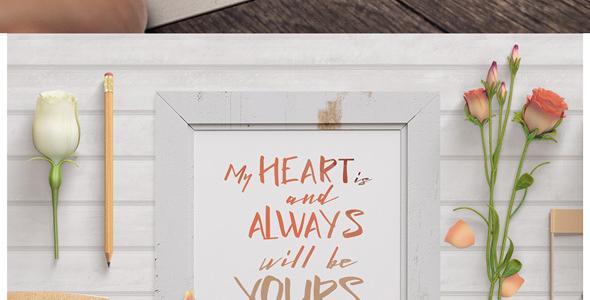
Lightening Script - Font Duo
Lightening Script, is a calligraphy wavy, modern and clasik, perfect for your next design, such as logos, printed quotes, invitations, cards, product packaging, headers and anything else about your imagination. Lightening Script allows you to create custom dynamic text. you can access by turning on; Stylistic Set, Initial and terminal as well as ligatures in Photoshop, Adobe Illustrator, Adobe InDesign or through a panel of glyphs such as Adobe Illustrator, Photoshop CC, Let’s switch from the reguler character into character alternative to get the text with the layout of your dreams. Lightening Script also includes glyphs, punctuation, numbers, and multilingual. Lightening Script features 272 glyphs and has given PUA unicode (specially coded fonts), with tons of alternate characters. The pack can be accessed in full by any crafter or designer, without the requirement for extra design software, COMPATIBLE WITH SILHOUETTE & CRICUT DESIGN SPACE also supports in pragram, Adobe Illustrator, Adobe Photoshop, Adobe InDesign, Corel Draw X version, Microsoft Word, Language Support : Albanian, Basque, Breton, Chamorro, Danish, Dutch, English, Faroese, Finnish, French, Frisian, Galician, German, Icelandic, Italian, Malagasy, Norwegian, Portuguese, Swedish. Files included: